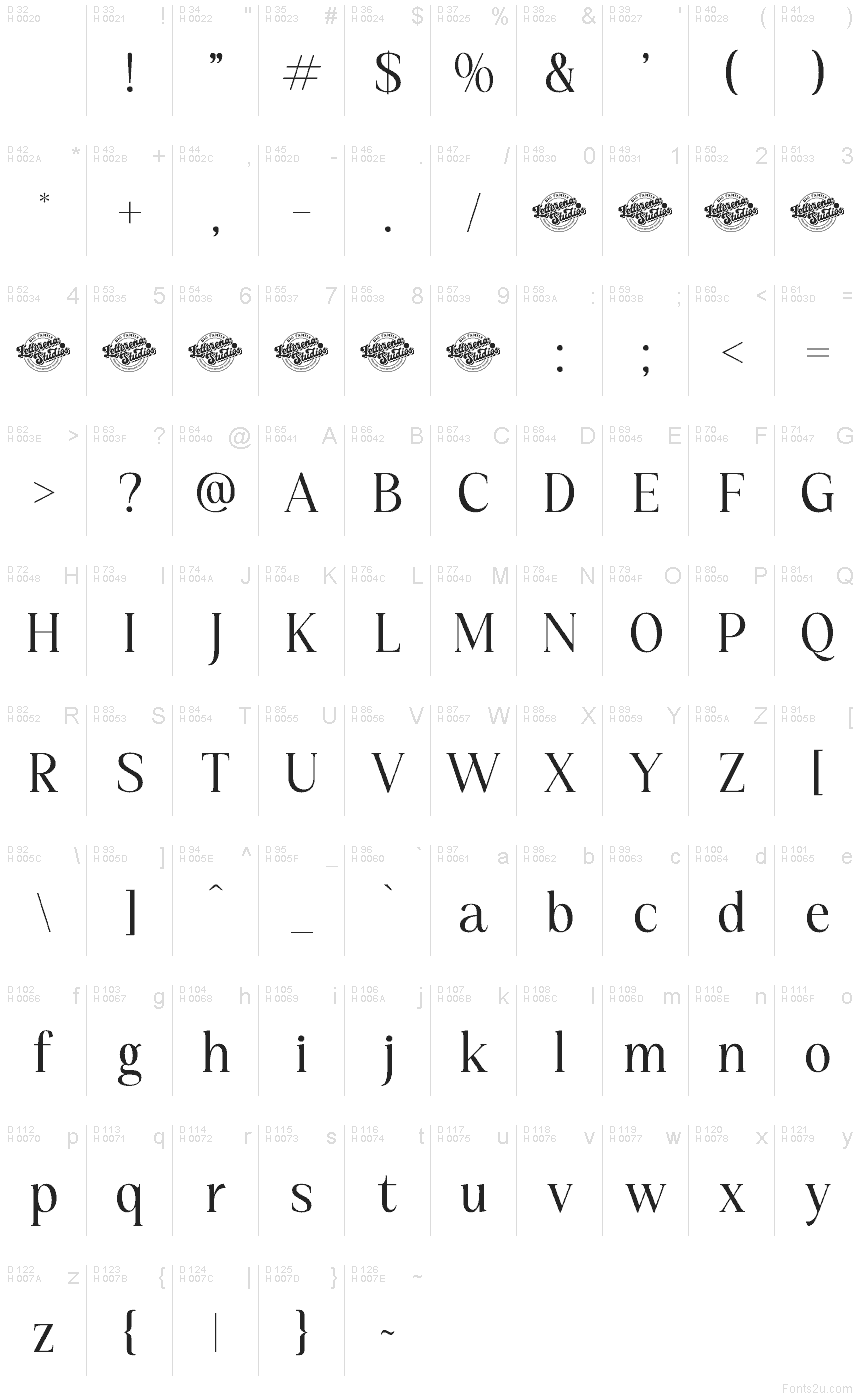
Kiprhany font designed by Letterena Studios is a free serif font where pure class, heartfelt sentiments, and beautiful curves are omnipresent. When looking at each of the characters individually or from afar, the calligraphic features are more than obvious. The elegance of cursive handwriting found its suit with serifs being one of Kiprhany’s main strengths.
The font offers uppercase alphabet letters that will match your project ideas for invitation designs to formal events such as weddings and engagements as well as branding projects for luxurious businesses.